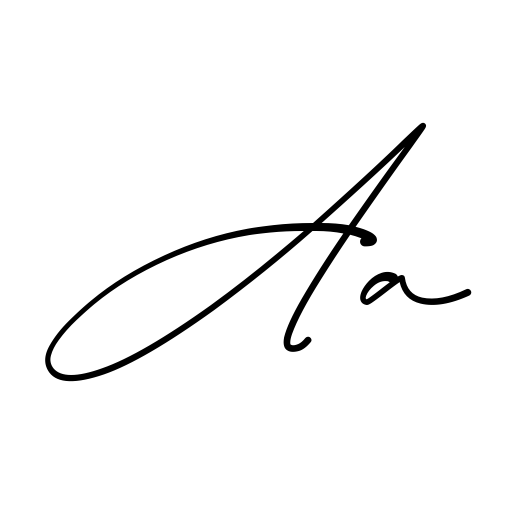
Blackstand is an elegant, delicate script font characterized by its fine, flowing strokes and graceful loops, giving it a sophisticated and personal handwritten feel. Its light weight and airy spacing make it ideal for high-end branding, invitations, or editorial headlines where a touch of refined artistry is desired. This font’s stylish, calligraphic style perfectly suits luxury fashion, wedding stationery, and creative projects seeking a modern yet classic handwritten charm.
Blackstand Font
About Blackstand Font
| Font family | Blackstand Font |
| Designer | DENIS |